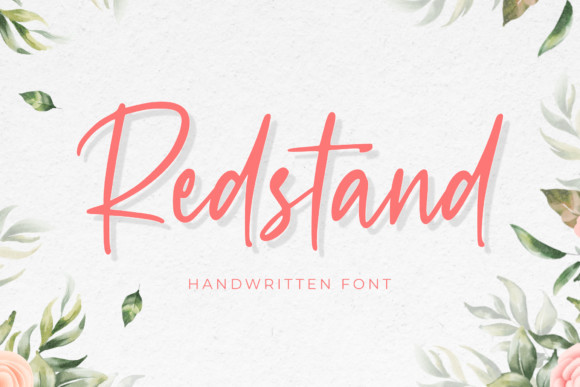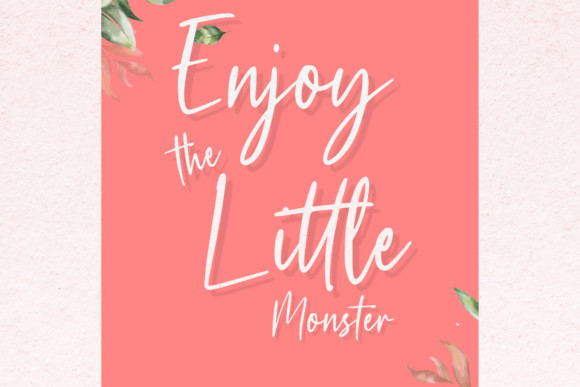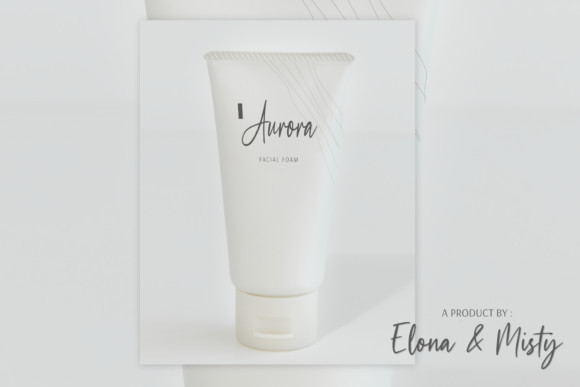
Redstand Font
Redstand is an elegant yet relaxed script font. It’s natural style is perfect for logos, product packaging, wedding invitations, branding, headlines, signage, labels, signatures, book covers, posters, quotes, and much more.